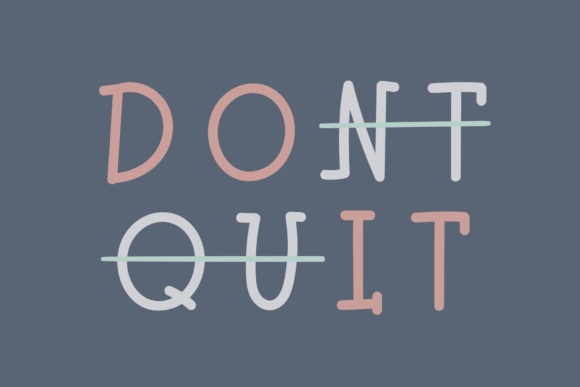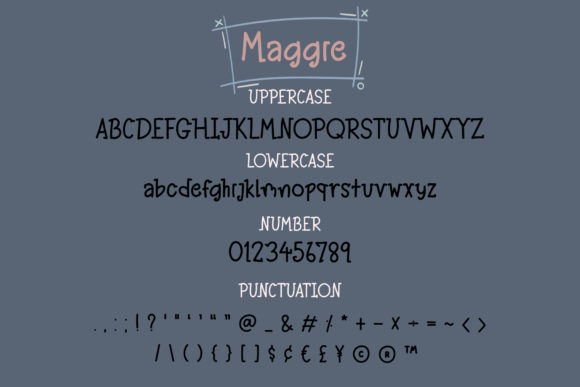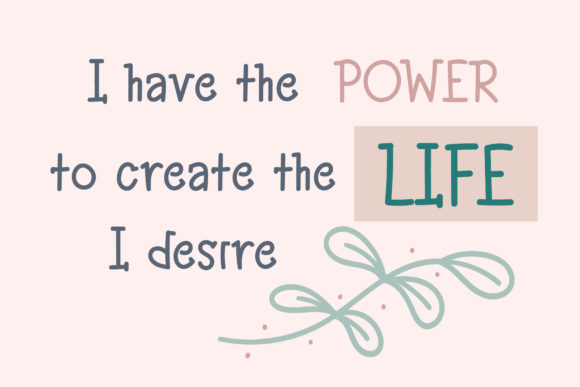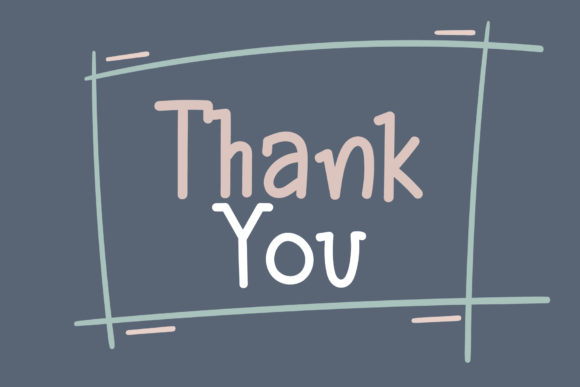
Introduction to Maggie Font
Have you ever stared at a blank canvas, feeling the pressure to create something truly special? As designers, we’ve all been there – the blank page staring back at us, taunting us with its emptiness. But what if I told you there’s a font that can spark your creativity and guide your design decisions? Enter Maggie Font, the charming handwritten font that’s about to become your new go-to design resource.
| 📌 Product Name | Maggie Font |
| 👤 Author | Wanida Toffy |
Whether you’re working on a high-quality logo, branding materials, or a social media graphic, Maggie Font is the perfect fit. Its clean and quirky aesthetic is both timeless and modern, making it an ideal choice for a wide range of creative projects. And the best part? You can download Maggie Font for free, giving you the freedom to experiment and bring your ideas to life.
Maggie Font
- Features a transparent background, allowing for versatile usage in various design applications
- Includes a range of characters and symbols, including uppercase and lowercase letters, numbers, and punctuation marks
- Designed with a unique, hand-drawn style that adds a personal touch to any project
- Supports a variety of languages, making it a great choice for multilingual creative projects
- High-resolution font, suitable for use in print and digital media, with a resolution of 300 DPI or higher
Honest Review: Maggie Font
As a designer, I’m always on the lookout for high-quality fonts to elevate my creative projects. Recently, I stumbled upon the Maggie Font, and I’m excited to share my honest review.
What works well: ✨ The Maggie Font is incredibly versatile, with a range of styles and weights that make it perfect for various design projects. The font is also incredibly legible, making it easy to read even at small sizes.
- High-quality design: The Maggie Font has a professional, polished look that’s sure to impress.
- Transparent background: This makes it easy to customize and combine with other design elements.
Any limitations: ⚠️ While the Maggie Font is an excellent choice for most design projects, it may not be the best option for very large or complex projects. Additionally, the font may not be compatible with all operating systems or devices.
Overall impression: I’m thoroughly impressed with the Maggie Font. Its high quality, versatility, and transparent background make it an excellent design resource for any creative project. With its free download option, it’s a must-have for designers looking to elevate their work.
Maggie Font
Overview
Maggie Font is a high-quality design resource ideal for creative projects. This font features a transparent background, making it perfect for overlaying text on images or videos.
Getting the Most Out of Maggie Font
To get the most out of Maggie Font, experiment with different font sizes, colors, and styles. You can also use the font in combination with other design elements, such as images and graphics, to create visually appealing designs.
Maggie Font is ideal for use in a variety of creative projects, including:
– Social media graphics and posts
– Blog posts and articles
– Marketing materials and flyers
– Presentations and reports
Alternatives to Maggie Font
Great Vibes Font is a beautiful, modern script font ideal for creative projects that require a sense of fun and playfulness. It features a high-quality design and is available for free download. When to use: For projects that demand a lively and energetic vibe. How it compares to Maggie Font: Great Vibes Font is more casual and less elegant than Maggie Font, making it suitable for younger audiences or creative projects that require a relaxed tone.